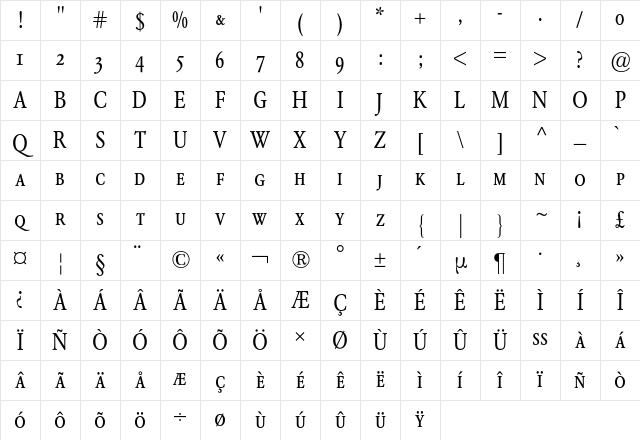
Complete GaramondCondensedExpertBQ Regular glyph index. Displaying only characters natively supported by GaramondCondensedExpertBQ Regular font.
GaramondCondensedExpertBQ is a composed and adaptable typeface that performs quietly and consistently across a wide range of design contexts. Its narrow stance lets it pack a punch even in space-constrained designs.